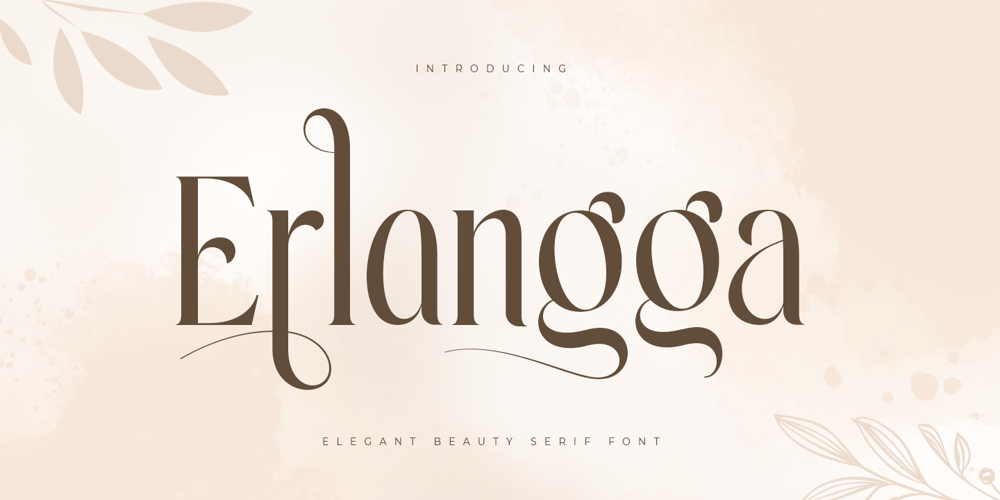
Erlangga Style
Erlangga Style font
Erlangga Style Font Family was designed by Zamroni Hamzah and published by Sensatype Studio. Erlangga Style contains 1 styles and family package options. A Serif font that we created special for elegant branding needs, with extra ligatures in unique shape will be ready to add value of your brand. It so nice to leverage designer or product owner that need solutions to make their design look more classy and modern. And specially for this font, We prepared any ligatures characters to help you create unlimited variations for your creative needs.Erlangga Elegant Beauty serif font ready with: Any options to get creative variations (combination of Alternatives) Preview as a inspirations that you can do with Erlangga font Ready with Lowercase and Uppercase characters Wish you enjoy our font. ๐Ÿ™‚